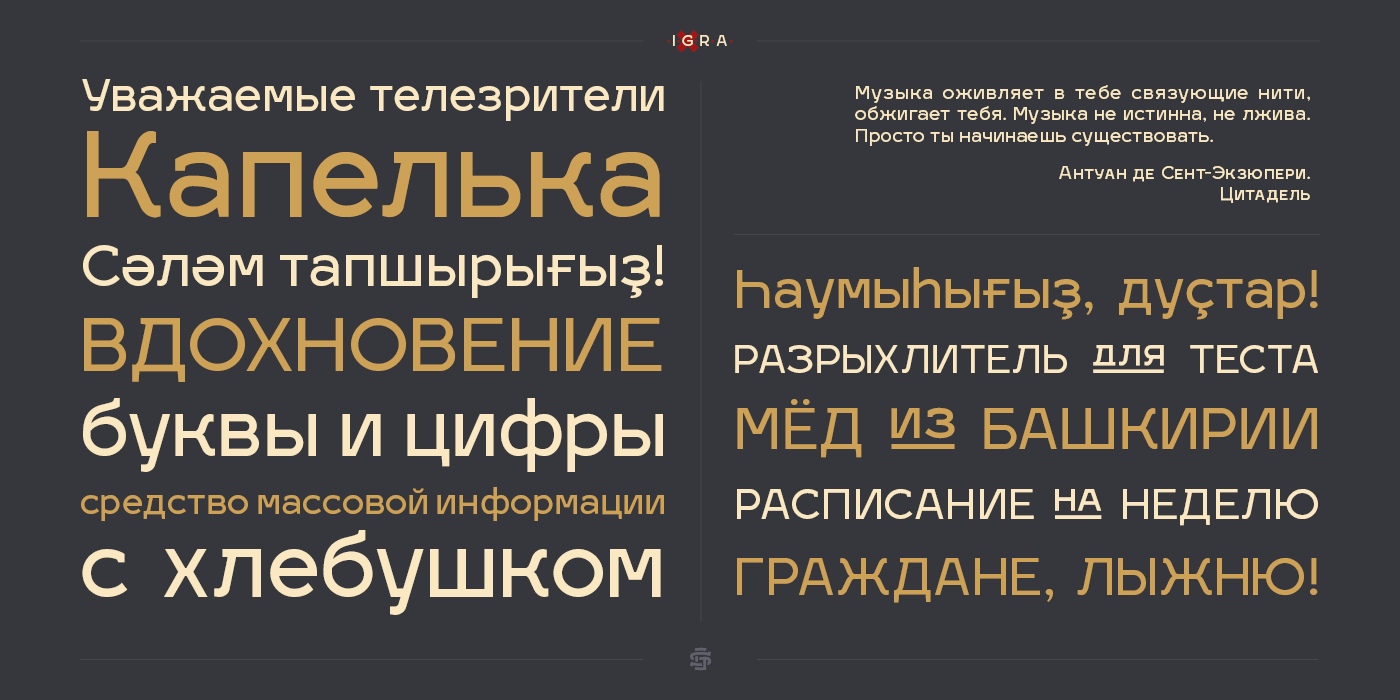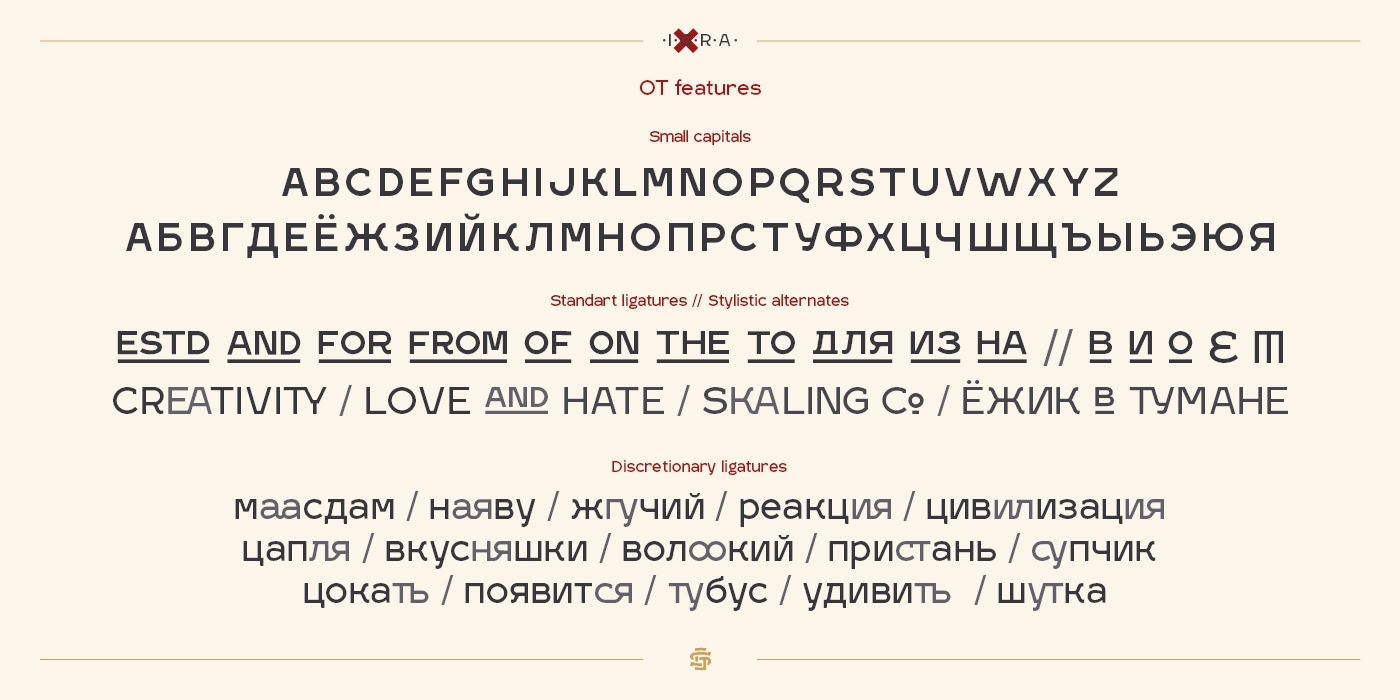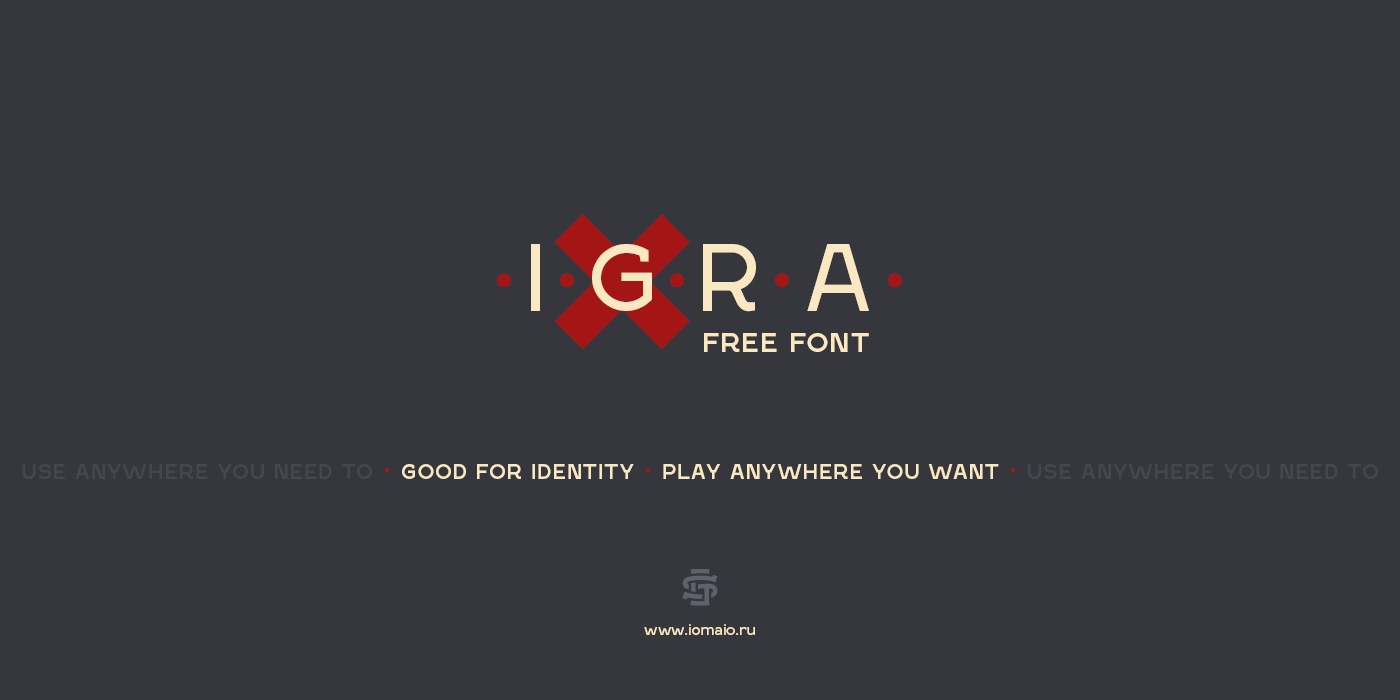
Igra Sans Font
Igra Sans Font is perfect for gaming industry branding, interactive entertainment logos, digital media communications, esports team identities, game development studios, interactive design projects, entertainment technology marketing, virtual reality applications, gaming hardware packaging, and digital entertainment platforms.
Igra Sans Font is exciting because it captures the dynamic energy and interactive spirit of modern gaming culture with its playful yet sophisticated letterforms that embody the perfect balance between fun and professionalism. Its distinctive character design combines gaming excitement with contemporary clean aesthetics, making it perfect for brands that want to communicate innovation, engagement, and the cutting-edge appeal of interactive entertainment in the rapidly evolving gaming industry.
The Igra Sans Font family includes Light, Regular, Medium, Bold, Extra Bold weights, dynamic Italic variations, Condensed styles, Gaming alternates, Interactive flourishes, Digital ornaments, and Entertainment elements, providing designers with comprehensive tools for creating engaging gaming typography that resonates with both casual players and professional gaming communities.
Igra Sans Font Free Download delivers next-generation gaming typography for the interactive entertainment industry, featuring meticulously crafted letterforms that embody the innovation and excitement of modern gaming while maintaining the professionalism required for serious gaming business applications. This versatile typeface combines gaming culture authenticity with corporate functionality, creating the perfect solution for game studios, esports organizations, and entertainment technology companies.
Whether you're developing game studio identities, designing esports branding materials, creating interactive entertainment communications, or producing gaming technology marketing, Igra Sans Font provides the engaging foundation needed for authentic gaming industry positioning. Its interactive character makes it particularly effective for game developers, esports teams, gaming hardware manufacturers, and digital entertainment platforms targeting both gaming enthusiasts and mainstream audiences.
Perfect for game industry marketers, esports brand designers, interactive entertainment developers, and creative professionals working with gaming organizations, this font offers the dynamic qualities essential for successful gaming market positioning. The typeface's versatile nature ensures consistent appeal across both digital gaming platforms and traditional entertainment industry applications.
Igra Sans Font includes comprehensive gaming character sets, interactive design elements, and digitally optimized spacing that guarantees superior performance in gaming industry applications. Its modern approach to gaming typography makes it indispensable for organizations competing in the interactive entertainment market. Level up your gaming brand with Igra Sans Font Free Download and create typography that truly plays to win.